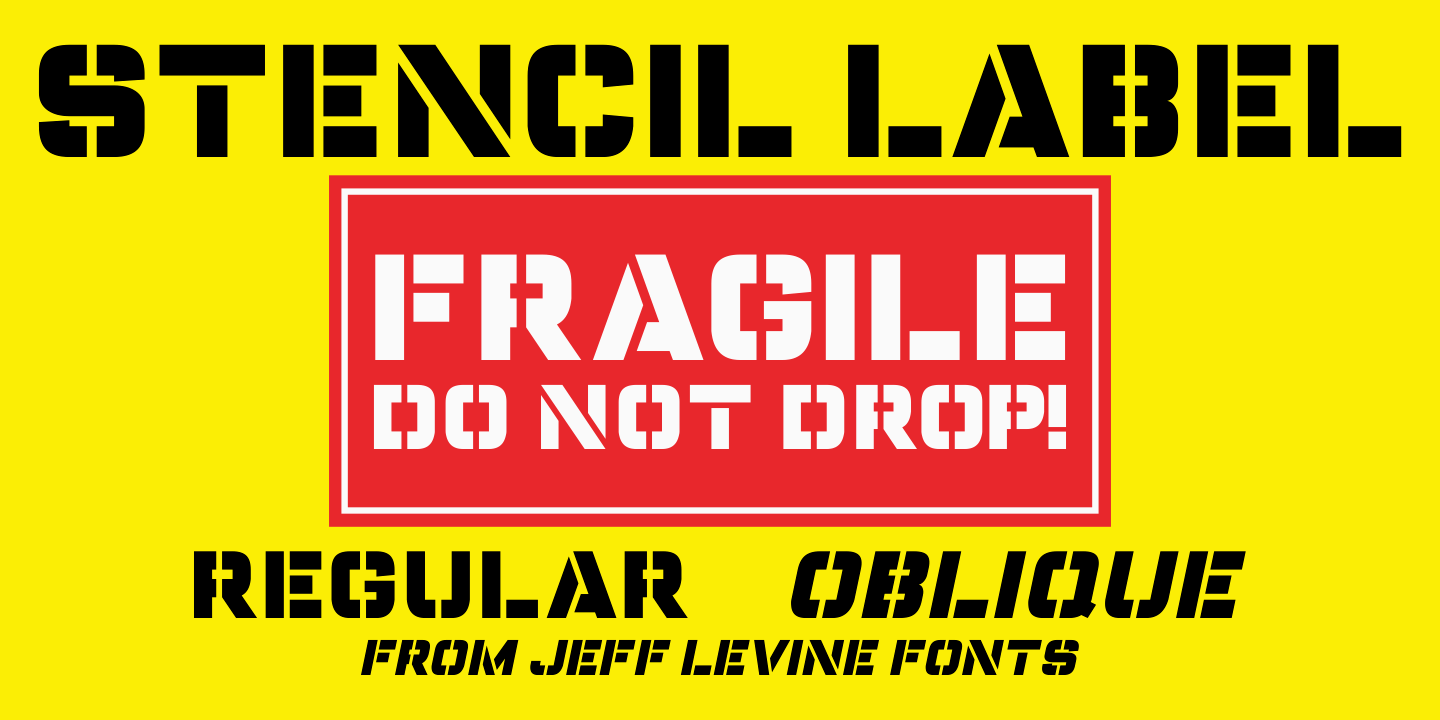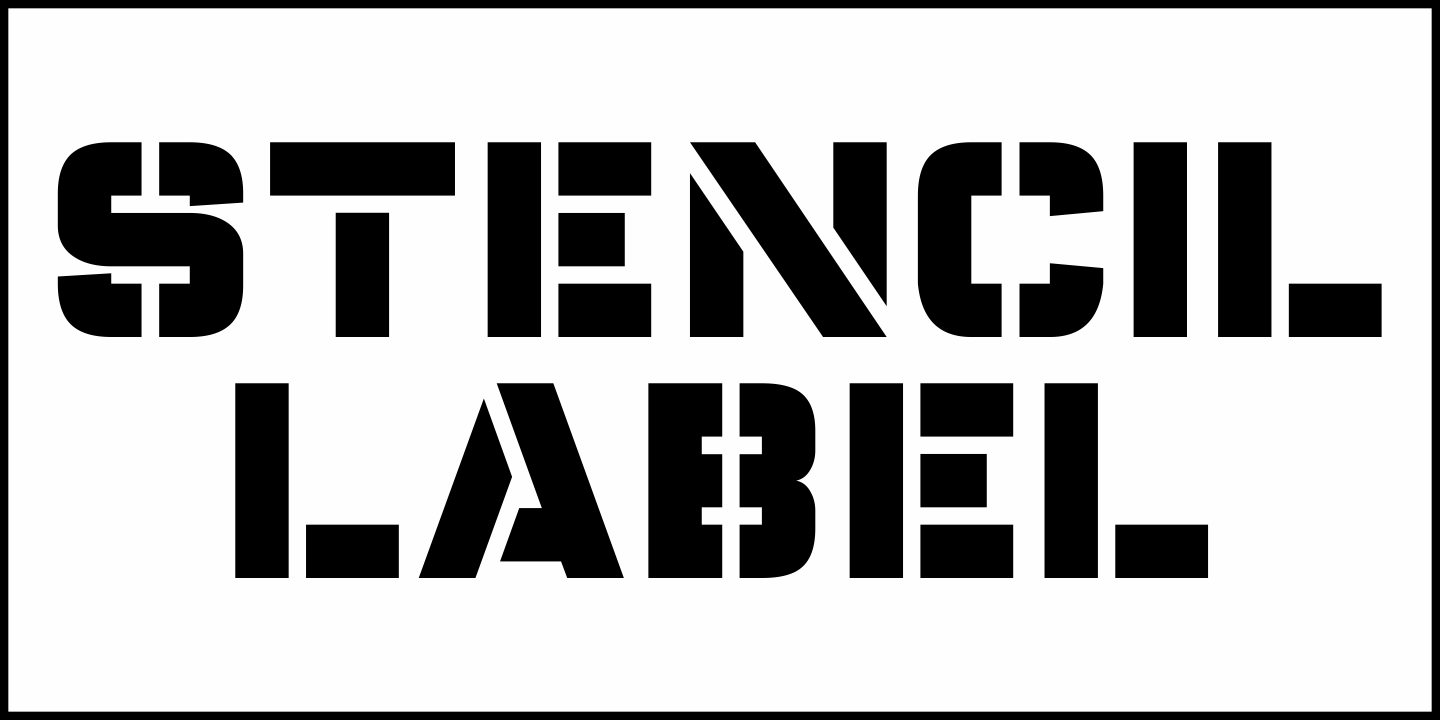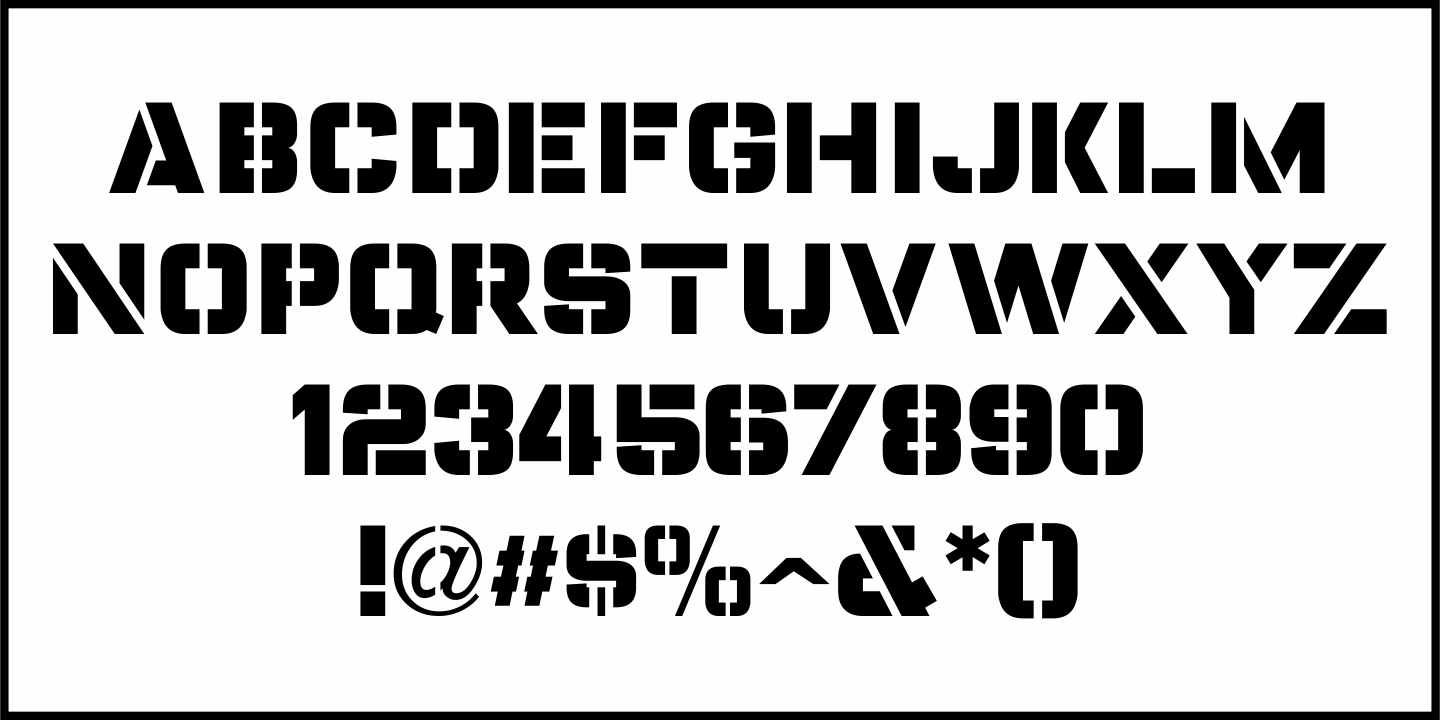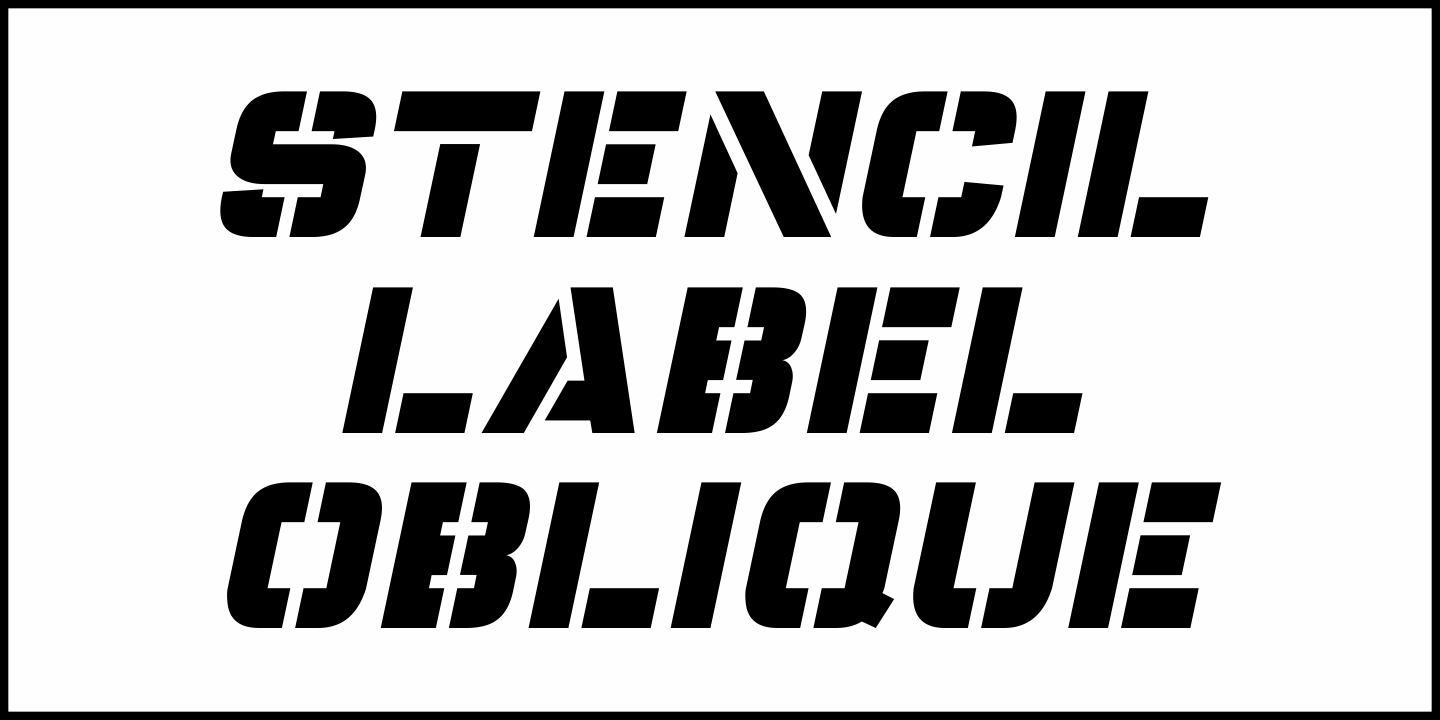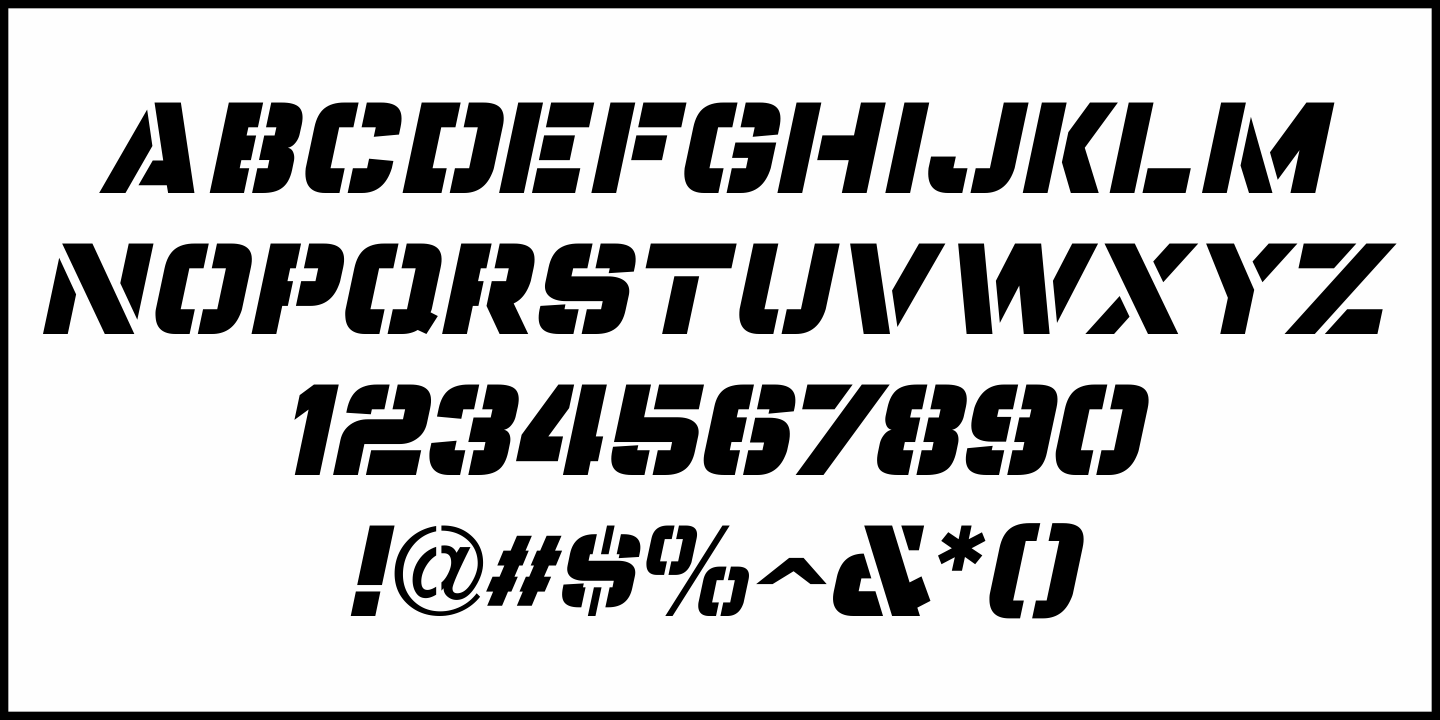
Stencil Label
In the 1943 Three Stooges comedy short 'Higher than a Kite', Curly reaches into a box with the label 'hand grenades' painted on its side and pulls out one of the devices.
The bold, squared stencil hand lettering on that prop inspired Stencil Label JNL, which is available in both regular and oblique versions.